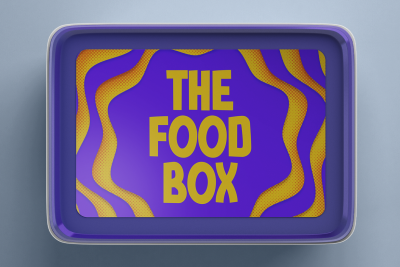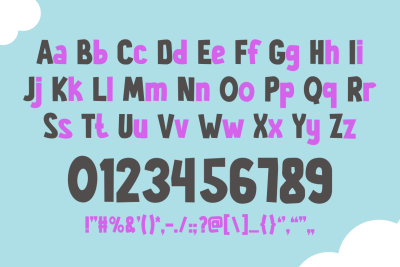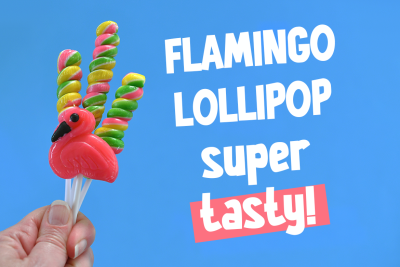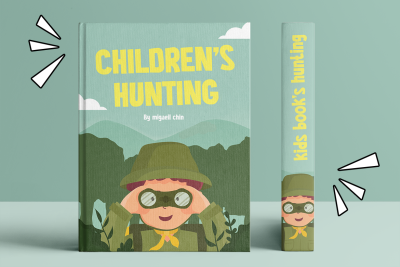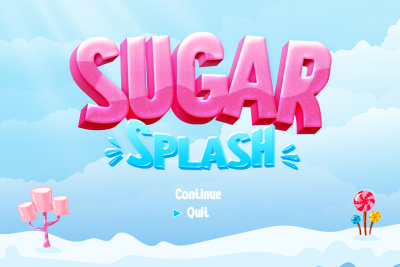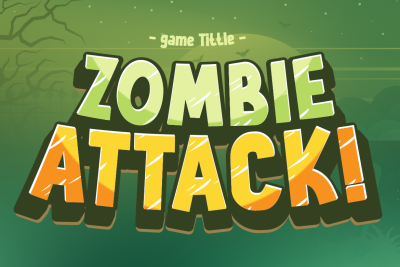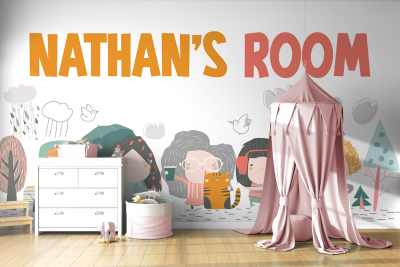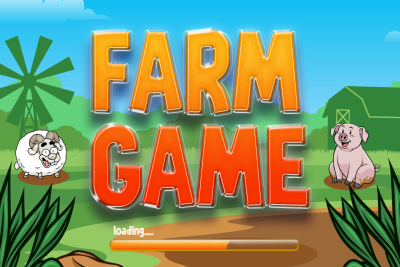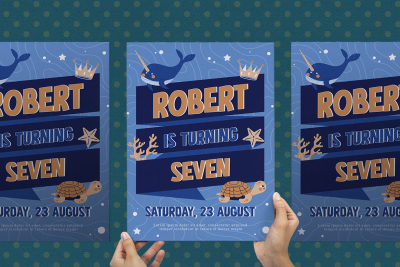
Gaming Font Panicko
PANICKO
The Gaming Font Panicko is a dynamic typeface designed to energize your designs with vibrancy and creativity. Its playful curves and thick strokes make it perfect for game titles, posters, and branding projects. Panicko ensures your message stands out in any visual landscape, commanding attention even in the busiest designs.
This font thrives in high-energy applications such as arcade-themed games, event flyers, and colorful product packaging. Its quirky details and rounded edges bring a unique personality to your projects. Whether you’re designing promotional content, digital interfaces, or social media posts, Panicko adds a spark of excitement to your work. Its adaptability across formats ensures consistency in your creative output, making it a trusted choice for a variety of design projects.
Why Gaming Font Panicko is the Perfect Choice
The Gaming Font Panicko is more than just a font; it’s a tool for creative expression. It adapts seamlessly to digital and print formats, making it a reliable choice for designers and marketers. Panicko shines in playful contexts but also balances fun with readability, making it ideal for children’s games, party invitations, and bold marketing campaigns.
With multilingual character support, Panicko ensures your designs can reach a global audience. Its artistic flair and readability make it stand out, perfect for projects needing clarity with a creative edge. Whether you want to energize a brand or create joyful visuals, Panicko ensures your work leaves a lasting impression.
Perfect for Diverse Projects
Gaming Font Panicko fits a wide range of uses, from video game graphics and animated YouTube thumbnails to educational materials for kids. Its friendly yet bold style makes it versatile enough to appeal to both younger and older audiences. You can use it to bring vibrancy to your marketing efforts or make your content more engaging with its bold, colorful character.
Adding Panicko to your design toolkit is a step toward transforming ordinary visuals into extraordinary creations. Its unique personality, combined with its user-friendly structure, makes it an exceptional choice for anyone seeking to add energy and excitement to their work.